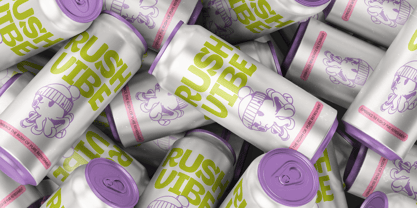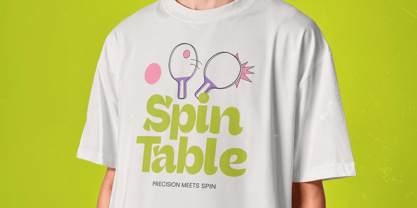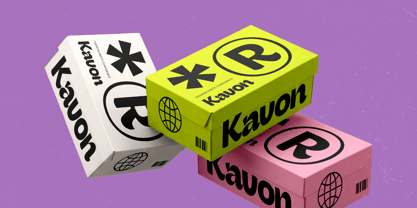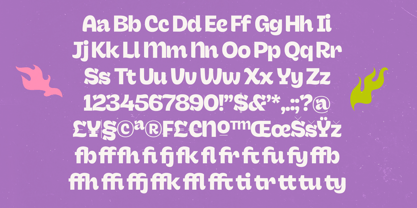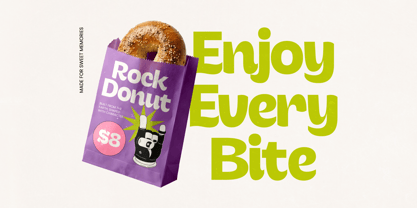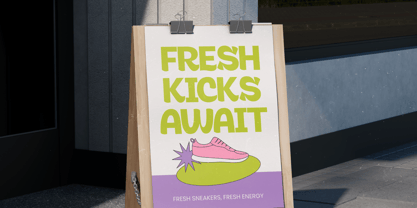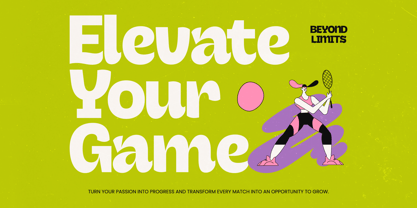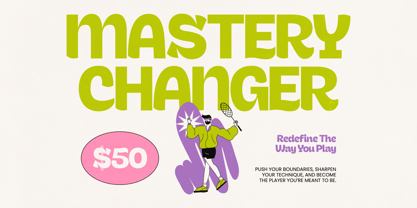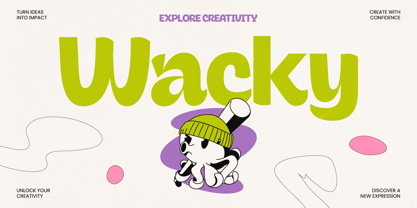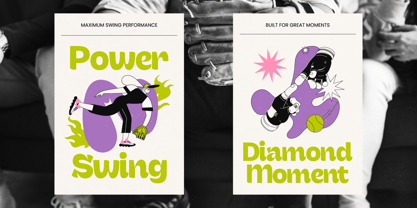
The Wacky Font Family was designed by Heru Utama Putra and published by Timelesstype Studio. Wacky contains 2 styles and family package options. More about this family
Embrace the unexpected with Wacky, a font that turns every letter into a celebration of creativity and joy. This typeface is designed to break the rules of conventional design, bringing a burst of energetic personality to your next big project.
Inspired by the bouncy, fluid movements of early rubber hose animation and the bold, expressive energy of vintage street art, this font captures a sense of nostalgia with a contemporary twist. It reflects a world where every curve tells a story and every sharp edge adds a touch of rebellion.
Exuding a charismatic charm that demands attention, this typeface delivers a powerful modern serif display feel despite its sans-serif roots, offering a sense of luxury typography through its unique weight distribution. It stands out as a high-contrast serif alternative that provides an editorial font quality, ensuring a lasting branding impact across all media.
Wacky